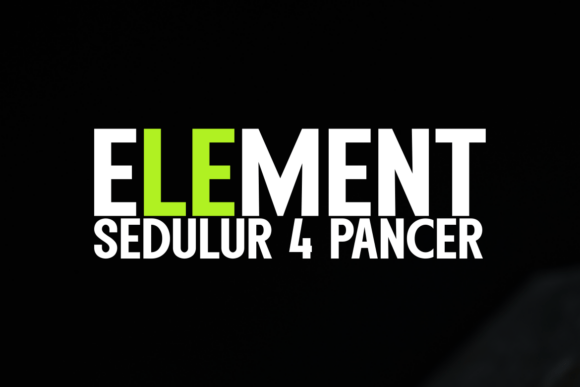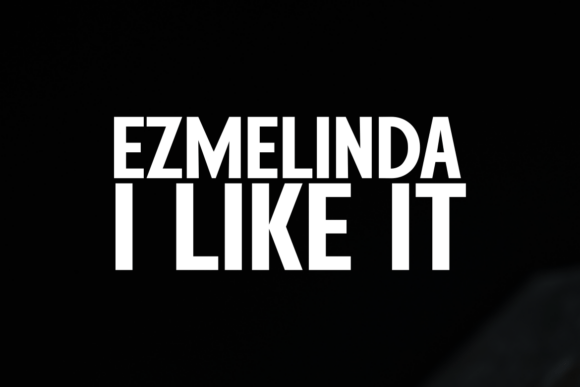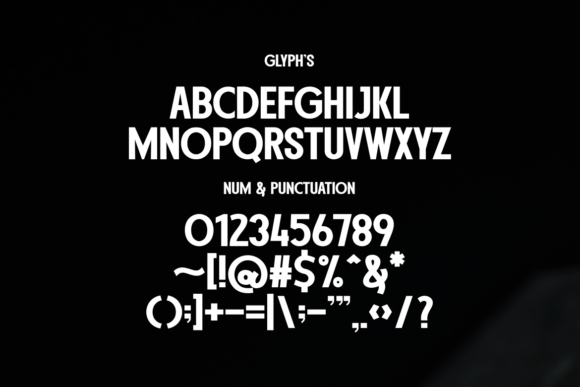
Introduction to Drazone Font
Have you ever found yourself scrolling through a beautiful design project, and suddenly, a font catches your eye? That’s exactly what happens when you come across a stunning piece of typography. The moment is fleeting, but the impression stays. For designers, this is what makes typography so valuable – it can elevate a simple message into a work of art. And that’s where the Drazone Font comes in – a game-changing design resource that will leave a lasting impression on your audience.
With its unique characters and bold design, the Drazone Font is perfect for print media and other impactful design avenues. Whether you’re working on a creative project or need a font for a free download, Drazone is sure to turn heads. Its high-quality design and transparent background make it an ideal choice for designers who demand the best.
Key Features of Drazone Font
- High-quality, professional font suitable for various creative projects.
- Unique, modern design with a transparent background, allowing for seamless integration into various backgrounds.
Honest Review: Drazone Font
I recently had the chance to experiment with the Drazone Font, and I’m excited to share my honest thoughts on this design resource. As a designer, I’m always on the lookout for high-quality fonts that can elevate my creative projects.
Here are some aspects where the Drazone Font truly shines: ✨
- Unique and futuristic aesthetic that can add a touch of sophistication to any design
- High-quality vectors that can be scaled up or down without losing clarity
- Transparent background option that makes it easy to integrate with other design elements
However, I did encounter a few limitations: ⚠️
- Limited font weights and styles, which may not be suitable for complex design projects
- May not be suitable for body text due to its unique and bold style
Overall, I’m impressed with the Drazone Font’s potential to add a creative twist to my design projects. While it may not be perfect, it’s a great resource for designers who want to experiment with a unique and high-quality font.
How to Use Drazone Font
The Drazone Font is a versatile design resource that can elevate any creative project. With its high-quality, transparent background, this font is perfect for designers looking for a unique touch.
Tips for Getting the Most Out of Drazone Font
Experiment with different font sizes, colors, and styles to create a unique look. Use the transparent background to create a sense of depth and dimension in your design.
The Drazone Font is perfect for creative projects such as logos, brochures, and social media graphics. Its unique design and high-quality transparent background make it a great choice for designers looking to add a touch of sophistication to their work.